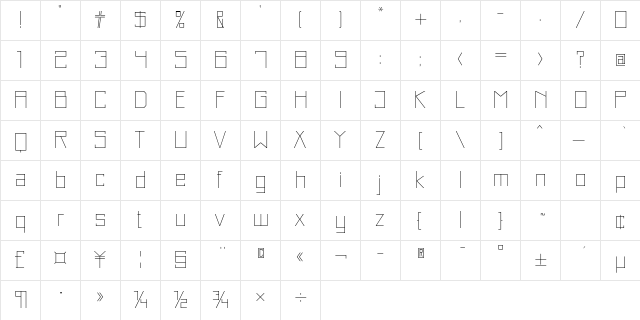
Just Square LT Std Cyrillic Ultra Light
| Foundry | Linotype GmbH |
| Designer | Zoran Kostic |
Design Context for Just Square LT Std Cyrillic Typeface
Just Square LT Std Cyrillic takes a measured approach to typography — its balanced proportions and neutral character make it a reliable workhorse for both digital and print work. Its slender proportions lend an understated elegance to any composition.